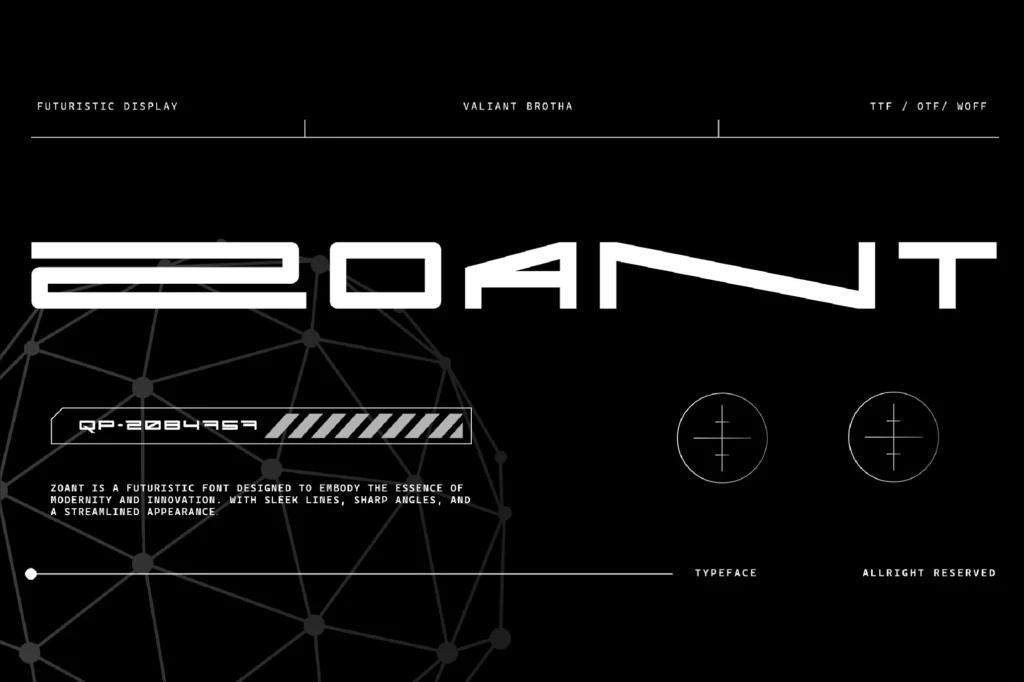
Zoant – Futuristic Font
ZoaNt Font is a bold and edgy typeface that combines sharp, angular elements with smooth, fluid curves to create a dynamic and unique visual appeal. Its modern design makes it perfect for high-impact headlines, branding, and digital content where attention-grabbing typography is key. The geometric structure of ZoaNt gives it a futuristic feel, while its fluidity adds a sense of creativity and movement. This font is ideal for projects looking to make a strong statement, offering both boldness and clarity without compromising on style. ZoaNt Font is the perfect choice for designs that demand a contemporary, distinctive look with a touch of innovation.